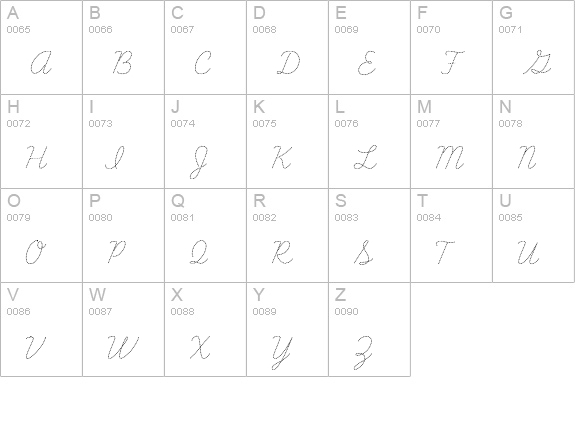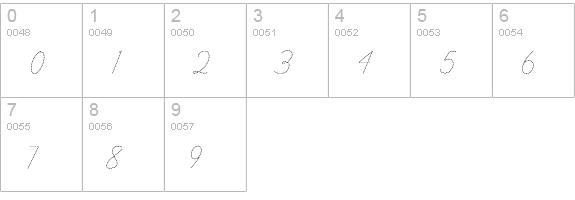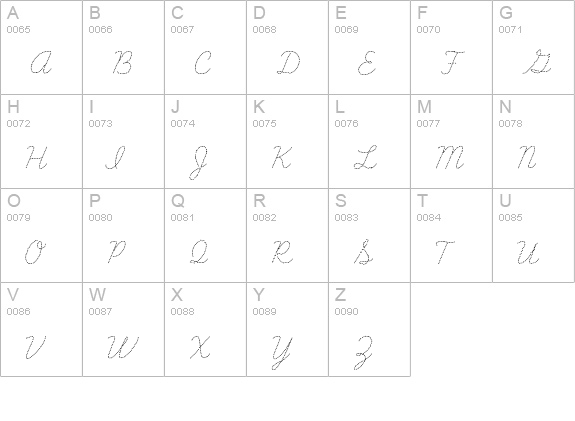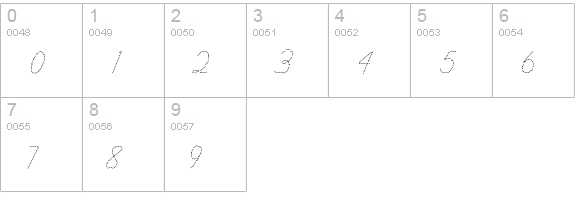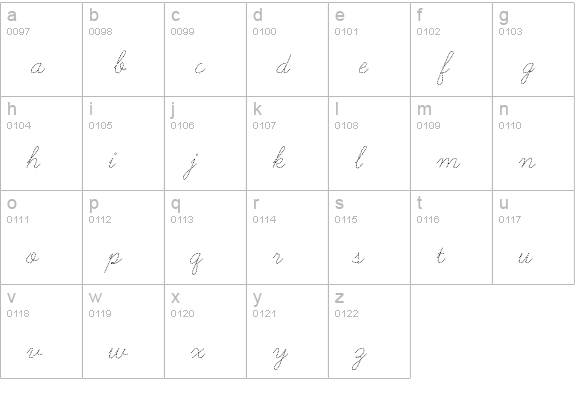
Learning Curve Dashed Font Details
Learning Curve Dashed is a charming and playful handwritten font that adds a unique touch to any project. With its whimsical curves and dashes, this font exudes a sense of creativity and fun. Whether you're designing invitations, greeting cards, or posters, Learning Curve Dashed is sure to make your text stand out. The best part? Learning Curve Dashed is completely free to download at FontsMarket.com. This means you can easily add this delightful font to your collection without having to spend a penny. Don't miss out on the opportunity to enhance your designs with the free-spirited charm of Learning Curve Dashed. Download it now and let your creativity flow!